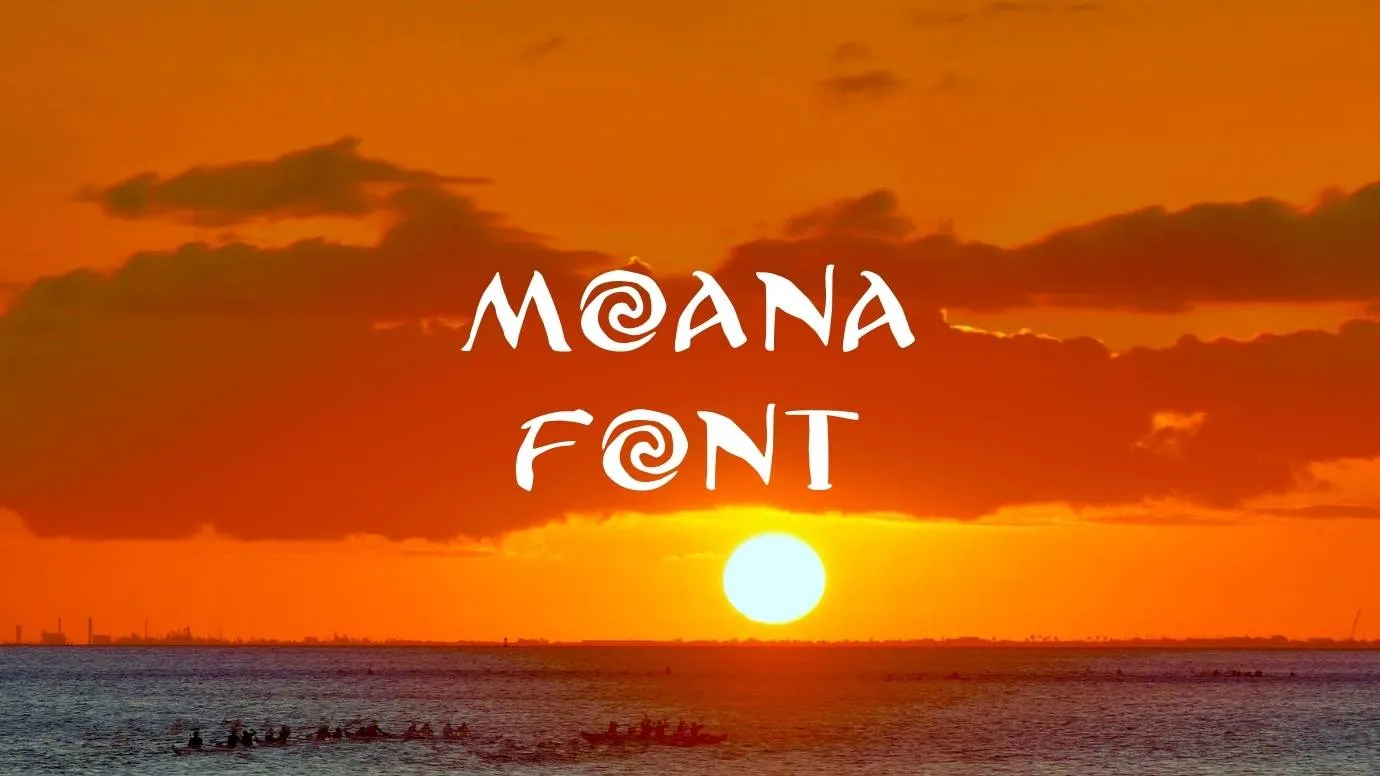
Moana Font Family is a clean and refined design. This Disney font, which originated from JoannaVu, is available for all types of uses. Crafted years ago, it comes in both free and paid editions.
Moana Font